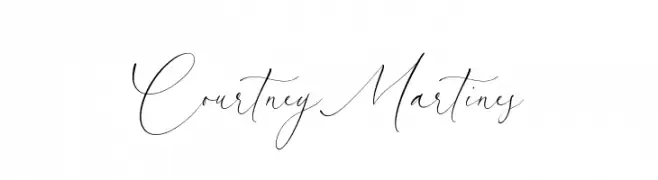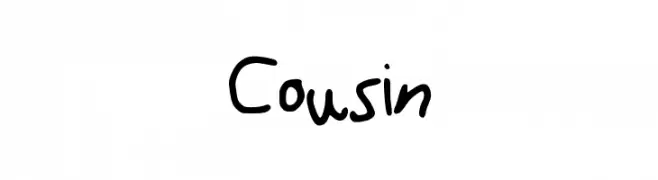
A modern, decorative font with a cursive, handwritten style.
A chaotic, distressed font with jagged edges and an aggressive style.
A bold, playful, and quirky typeface with a hand-drawn appearance.
A bold, distressed font with a brush-like texture and aggressive style.
A flowing, cursive font with elegant loops and a handwritten style.
A playful, informal handwritten font with a dynamic and lively feel.
A bold, angular font with an industrial, Eastern Bloc aesthetic.
A bold, decorative font with intricate flourishes and high contrast.
An ornate, decorative outline font with elegant swirls and loops.
A bold, retro-inspired serif font with rounded characters and a playful vibe.
A rugged, hand-drawn font with a vintage, distressed appearance.
A casual, playful handwritten font with irregular strokes and a friendly appearance.
A bold, playful serif font with rounded serifs and a whimsical style.
A bold, playful font with a retro flair and rounded characters.
A fluid, elegant script font with a natural handwritten style.
A bold serif font with high contrast and elegant serifs.
A dynamic, flowing script font with a bold, handwritten style.
A bold, dynamic font with sharp, angular strokes and a hand-drawn feel.
A dynamic, italicized font with sharp, angular strokes and a hand-drawn feel.
A bold, dynamic font with sharp, angular edges and a hand-drawn quality.
A dynamic, italicized font with sharp, angular strokes and a hand-drawn appearance.
A lively, handwritten font with dynamic strokes and artistic flair.
A decorative font inspired by ancient runes, featuring tall, slender characters with geometric shapes.
A bold, energetic brush-style font with irregular, jagged strokes.
A dynamic, brush-style font with bold, jagged strokes and an energetic appearance.
A bold, hand-drawn font with energetic brush-like strokes.
A bold, decorative font with concentric circular patterns creating a dynamic and artistic look.
A bold, decorative font with concentric circular patterns creating a striking visual impact.
A bold, brush-style font with dynamic strokes and artistic flair.